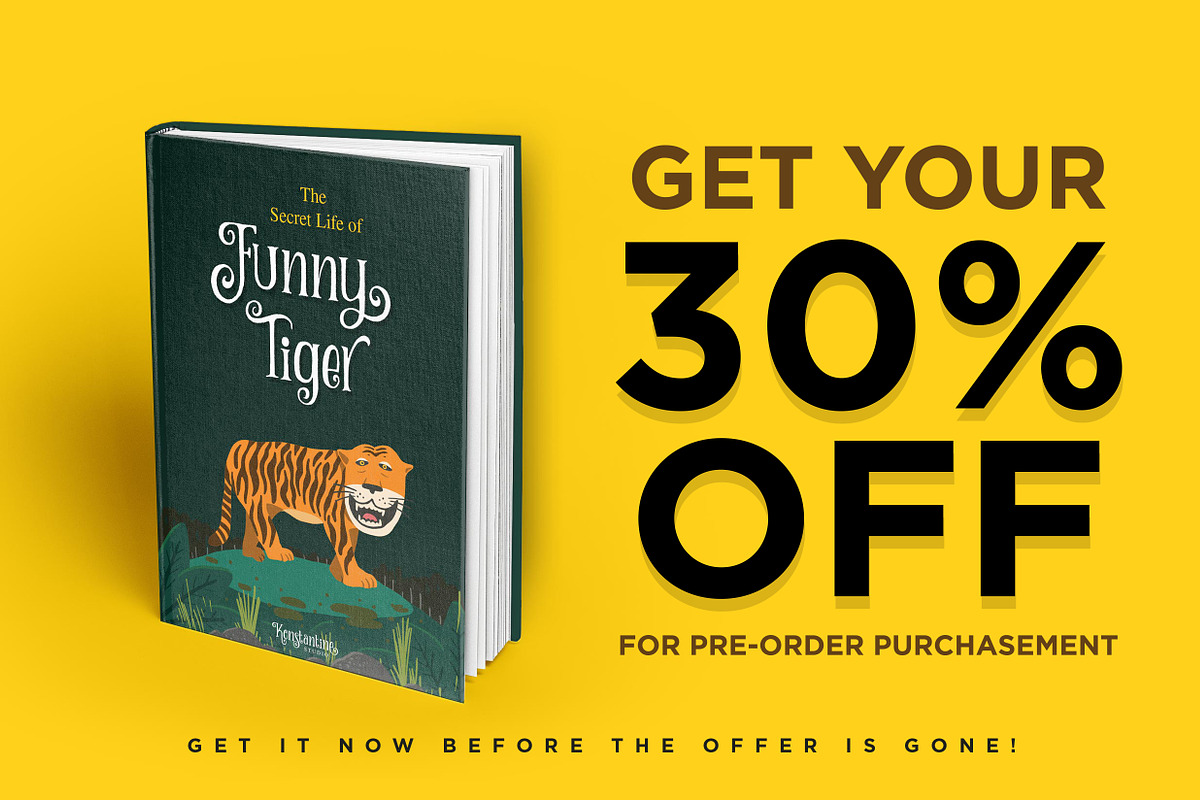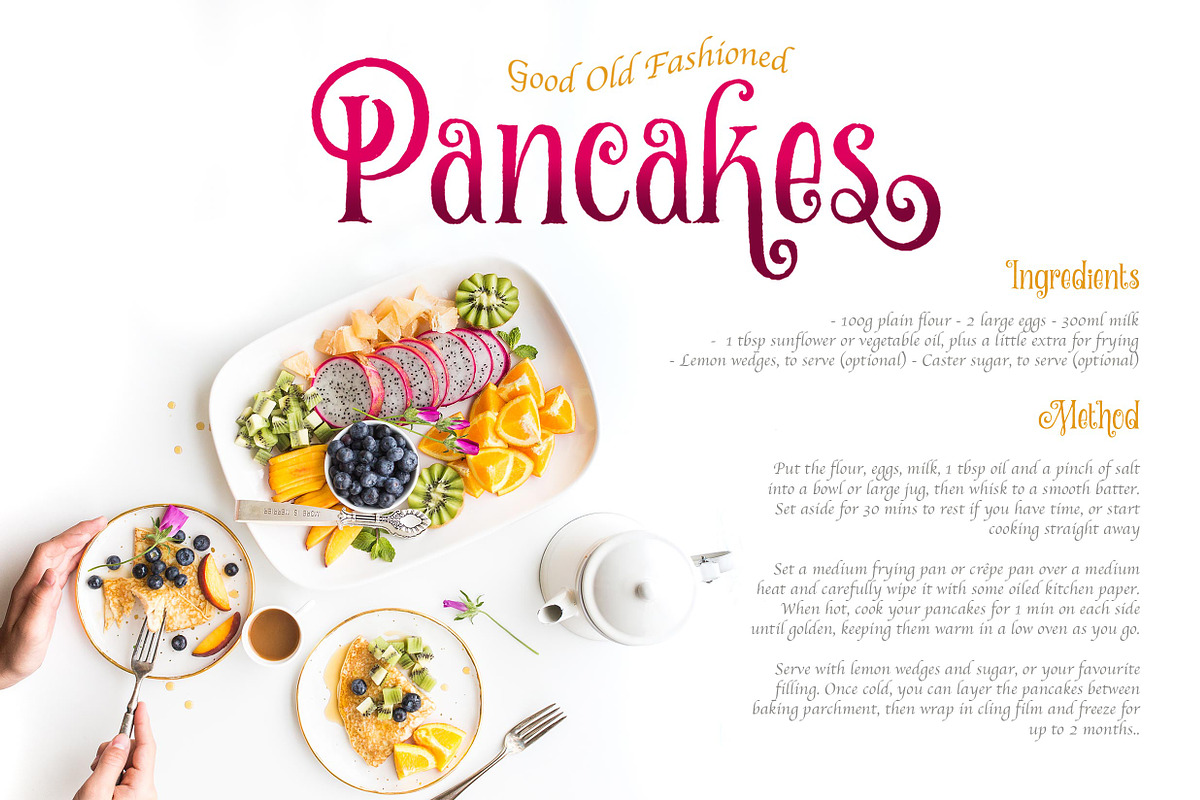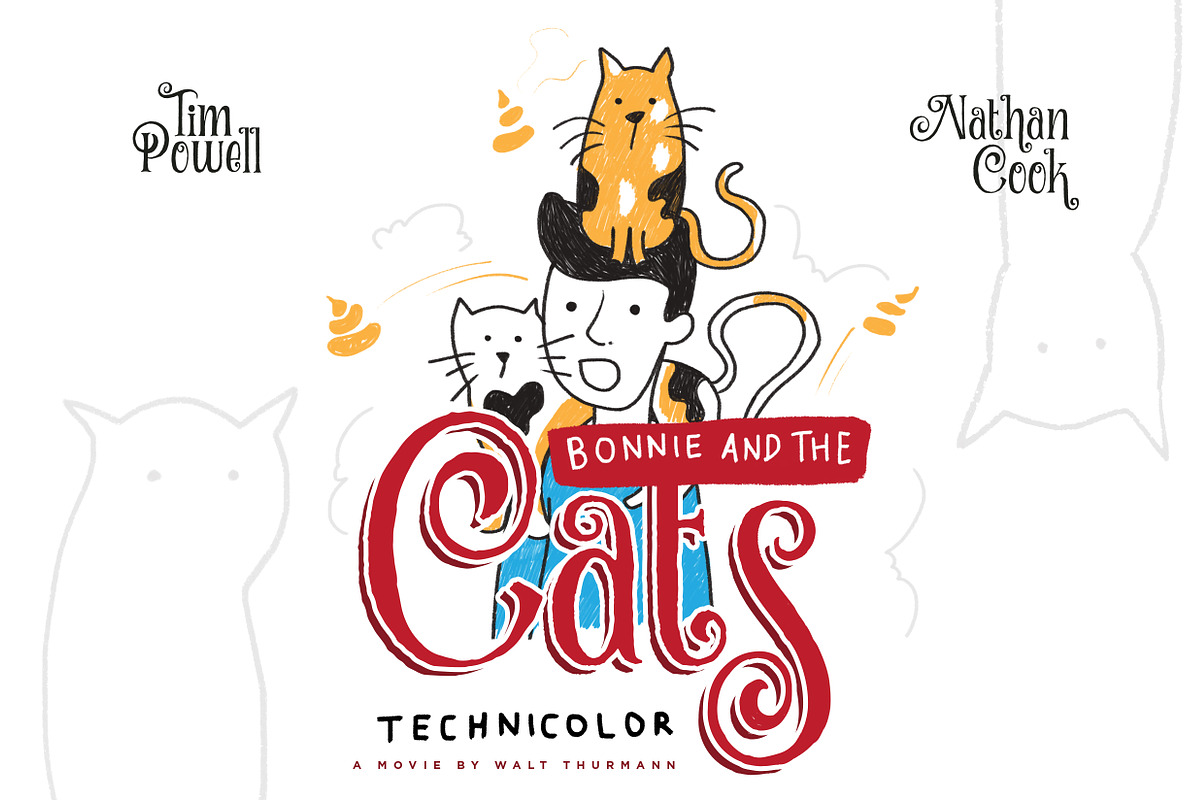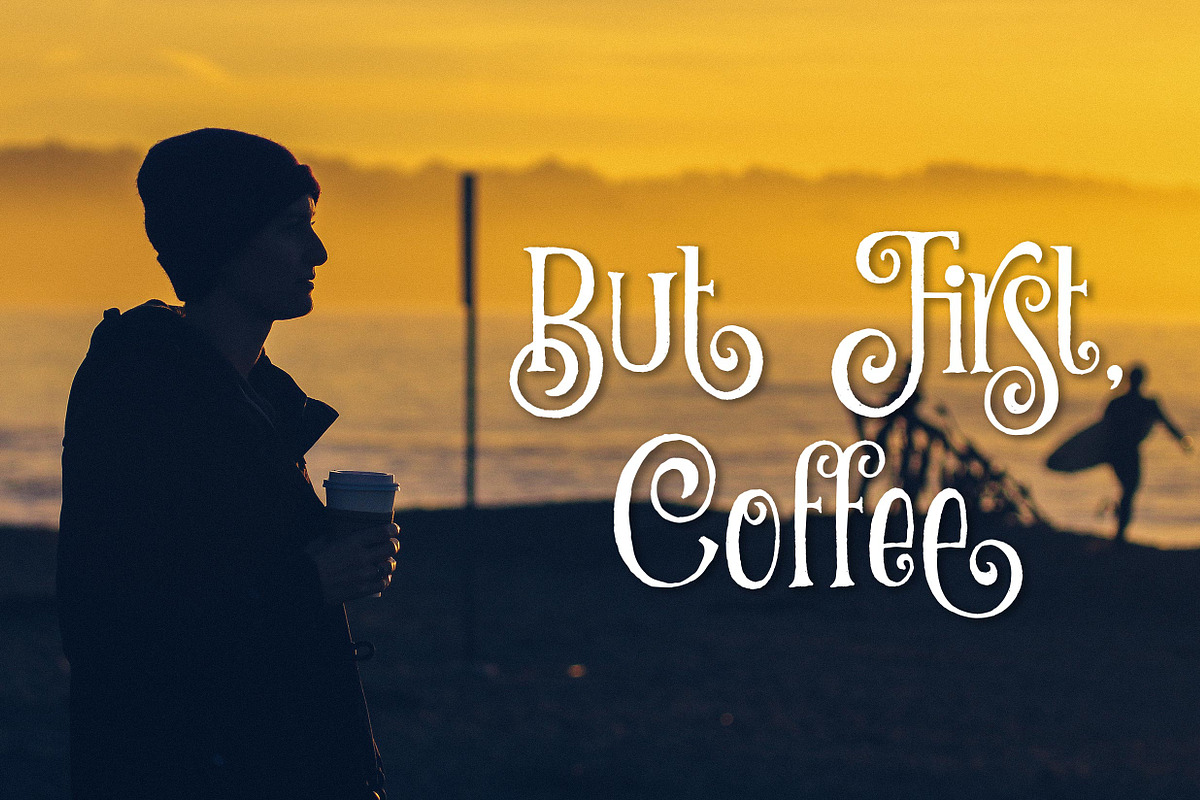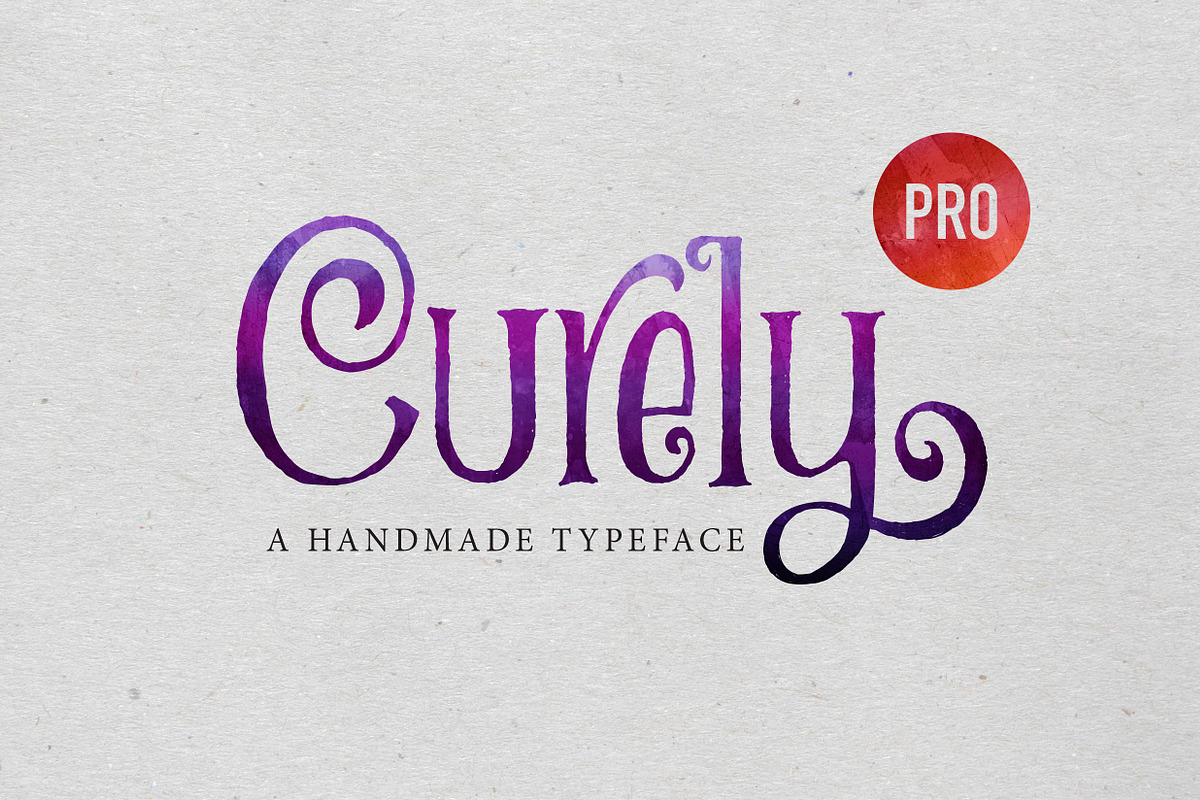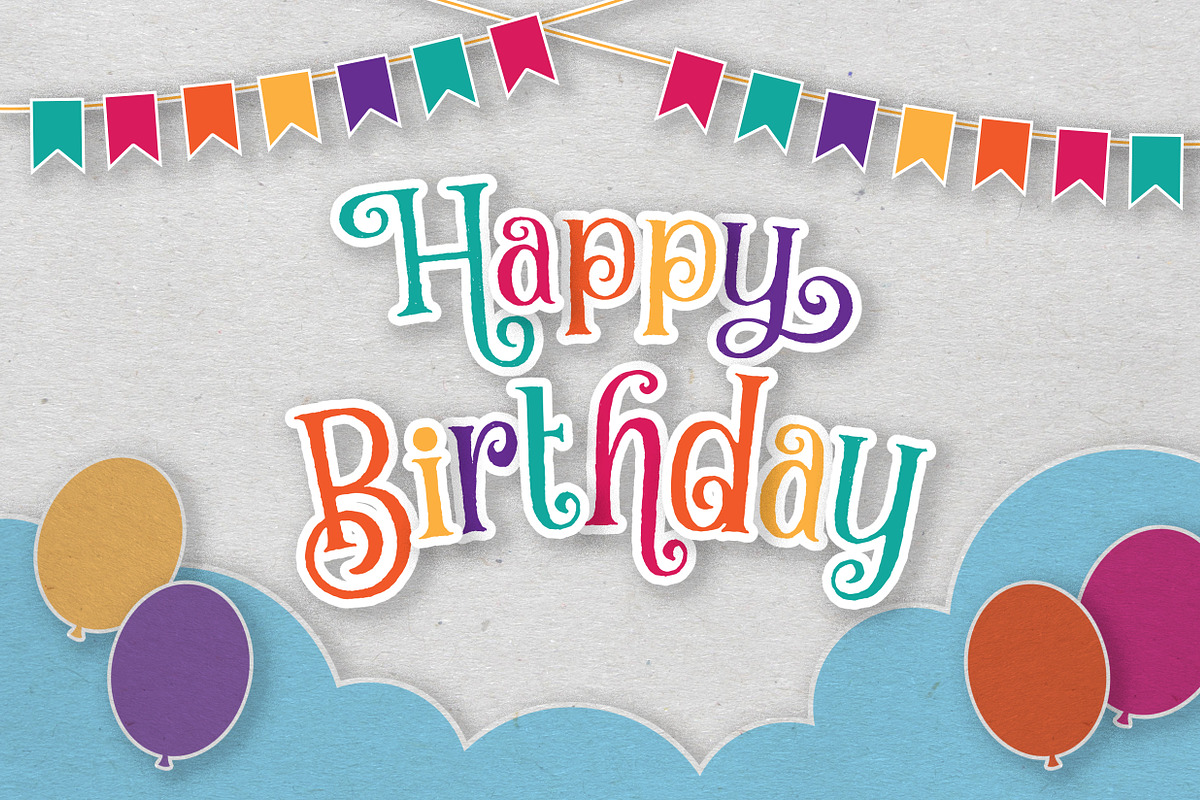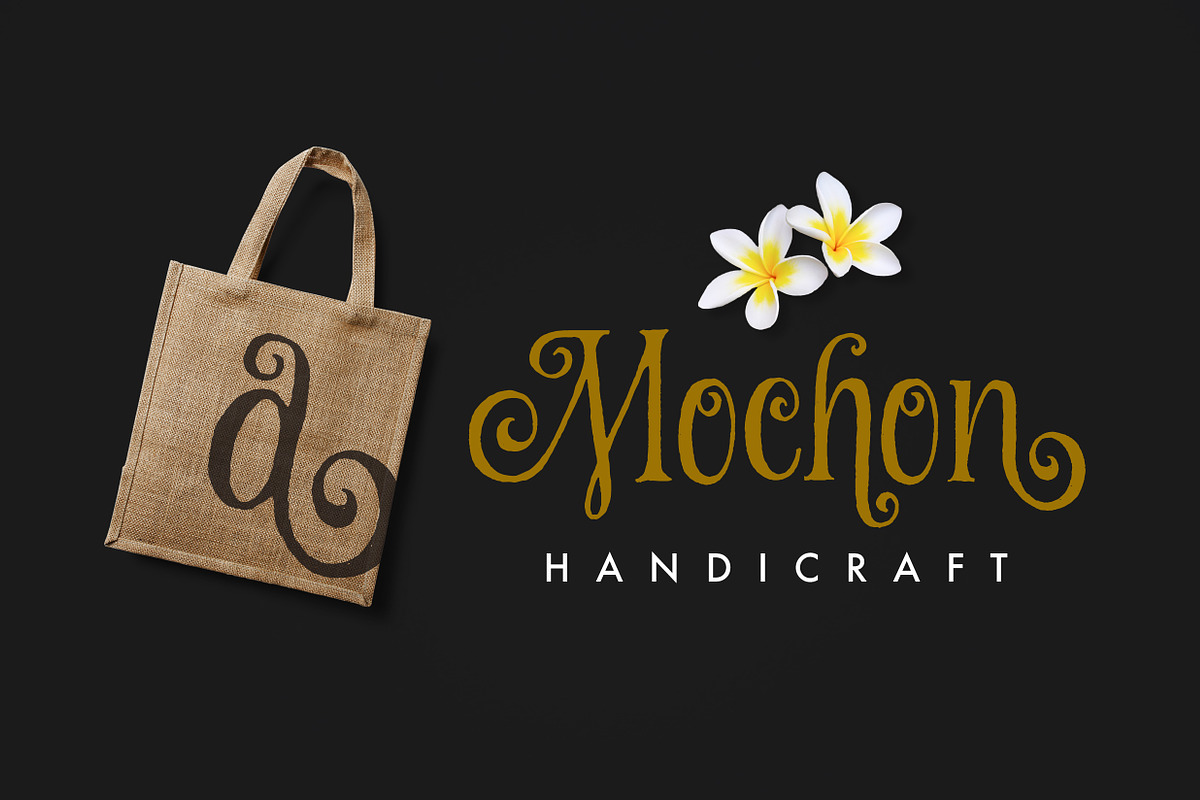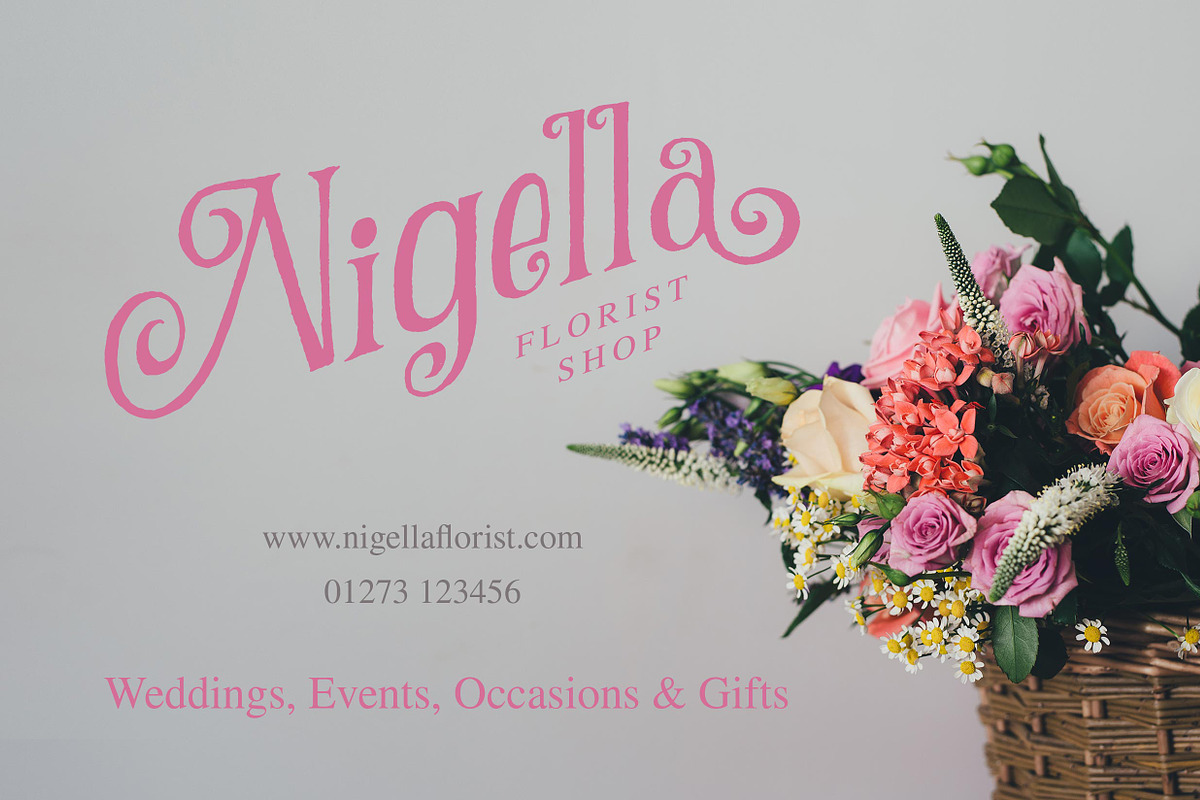
Curely Pro fancy cute lettering font
Curely Pro fancy cute lettering font by Konstantine Studio is a font selected for branding, posters, packaging, typography.
Why Curely Pro fancy cute lettering font is worth a look
Curely Pro fancy cute lettering font by Konstantine Studio fits naturally into Branding, posters, packaging, typography.